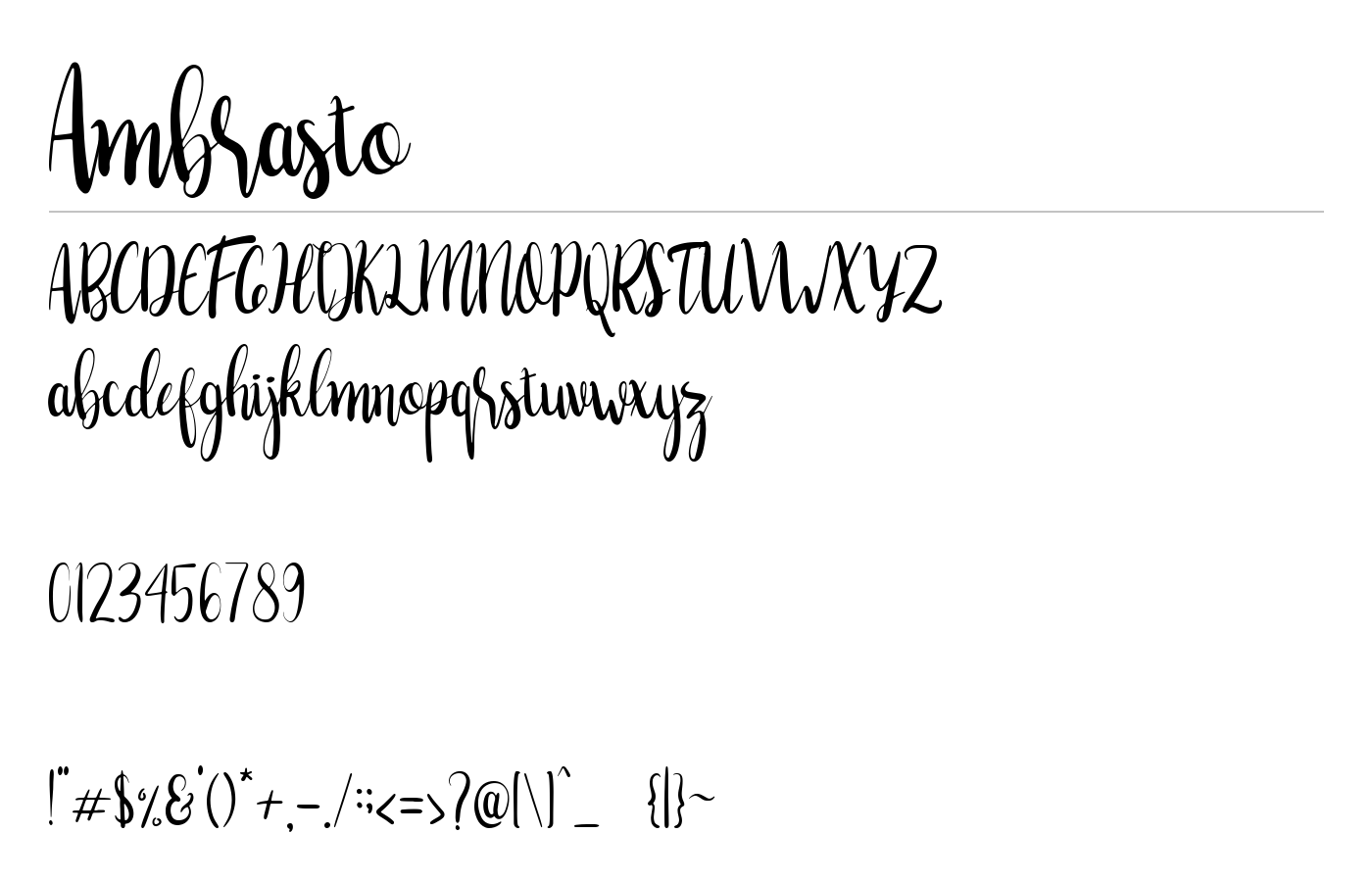
Ambrasto is a slender, elegant script font with a hand-drawn, casual feel, featuring tall, flowing letterforms with varied stroke thickness that lend a lively and personal touch. Its narrow width and mix of thick and thin lines create a graceful yet approachable style, making it ideal for invitations, branding, or any design needing a warm, artistic flair. This font works best in headlines or decorative texts where personality and charm are desired.
Ambrasto Font